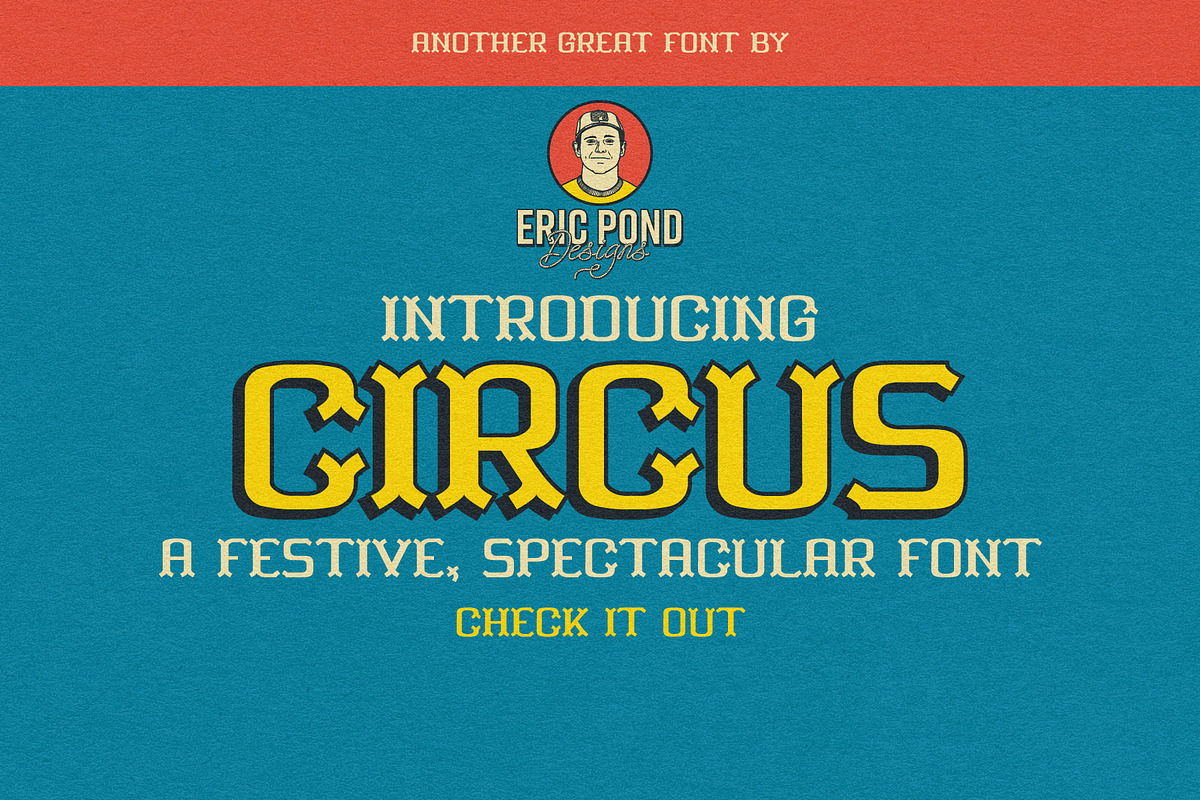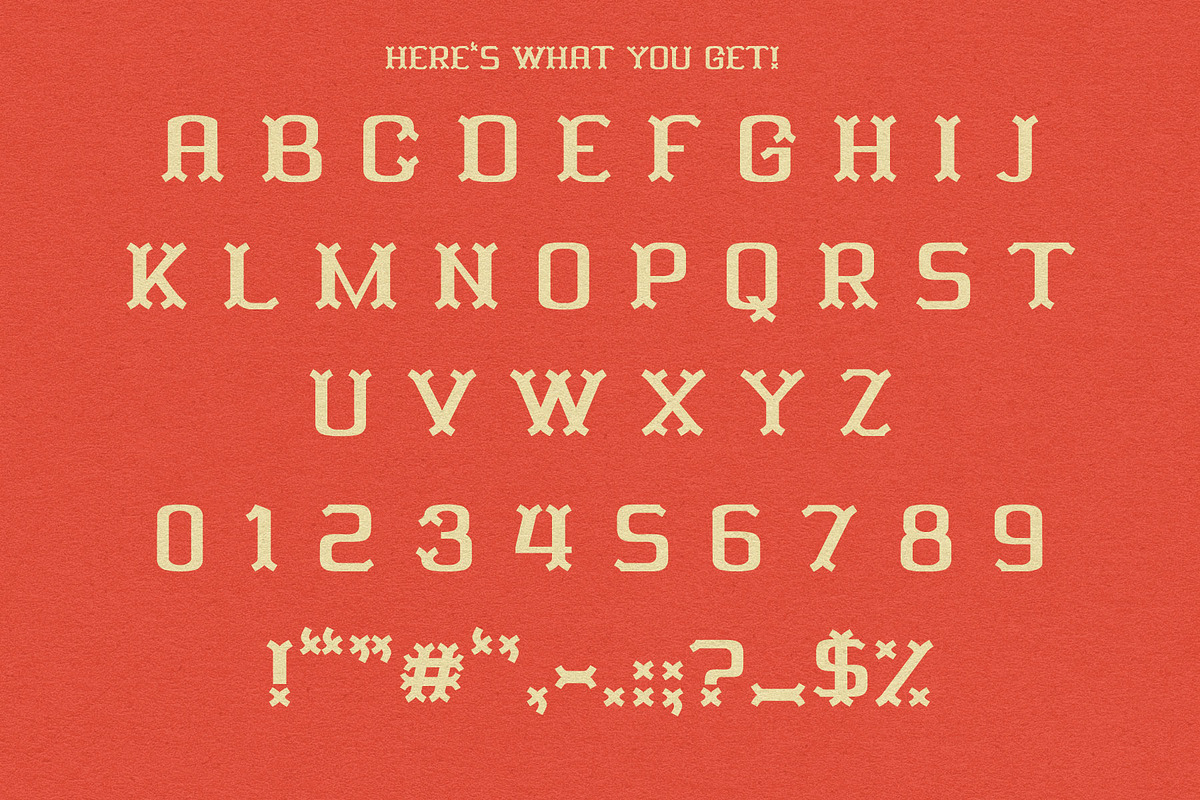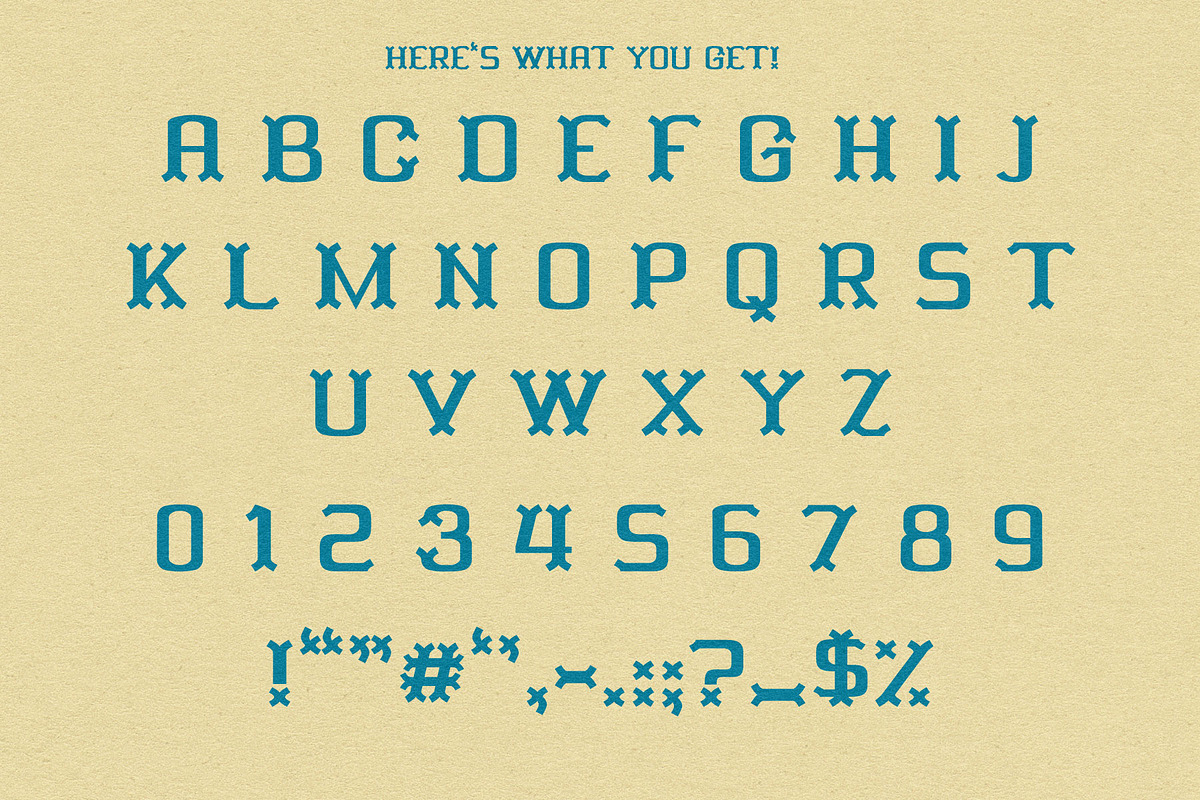
Circus by Eric Pond Designs
Introducing Circus, a Festive, Spectacular title font by Eric Pond Designs! Circus features uppercase, numbers and some punctuation.